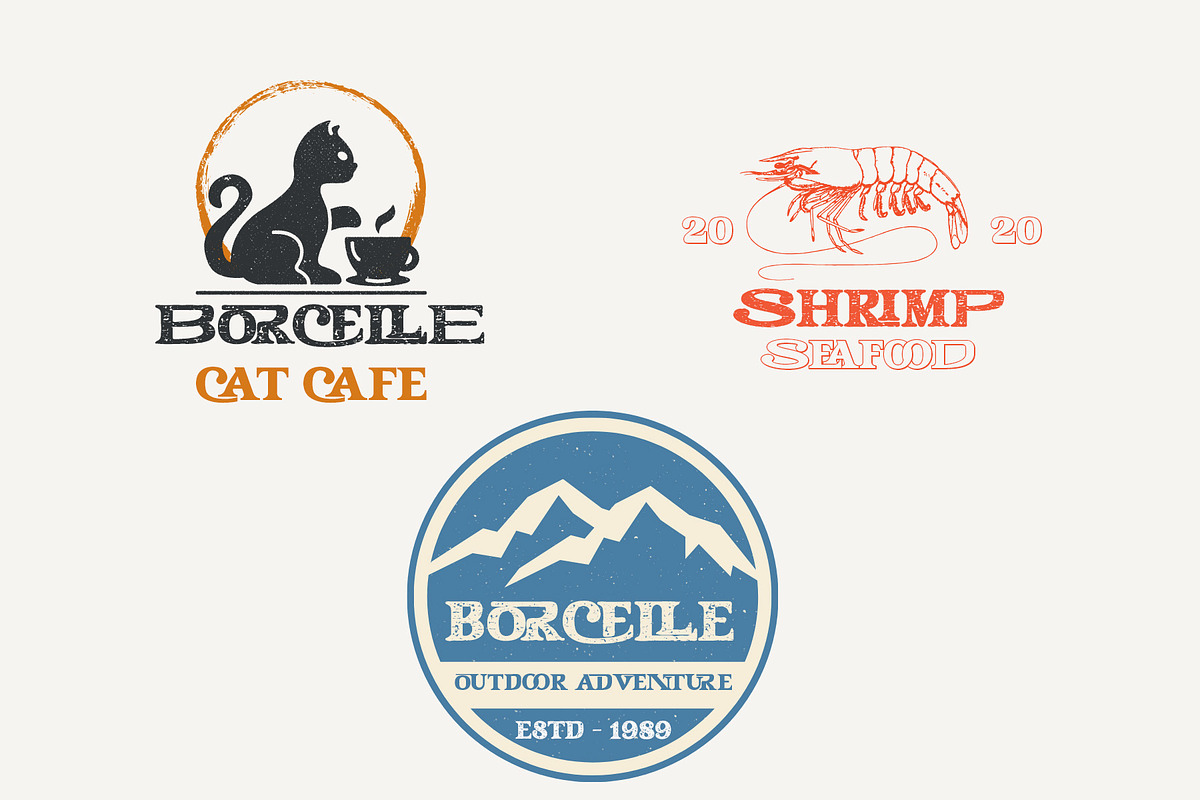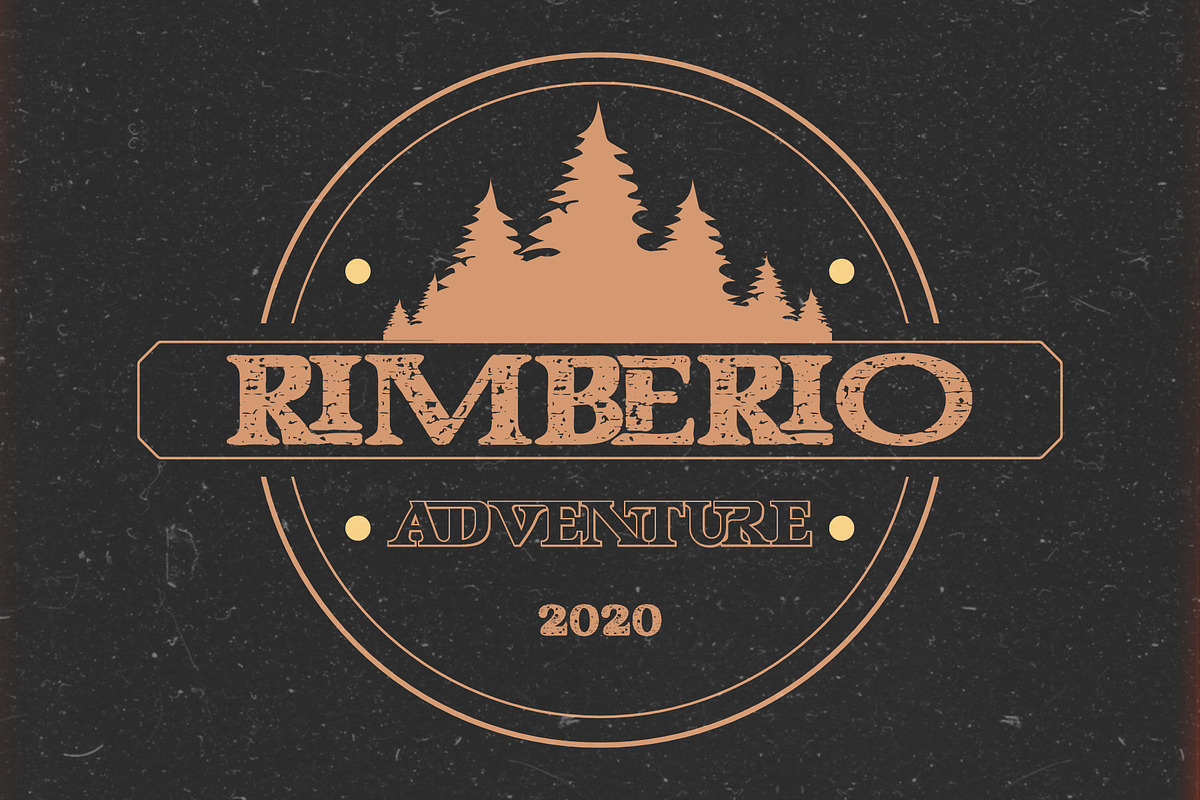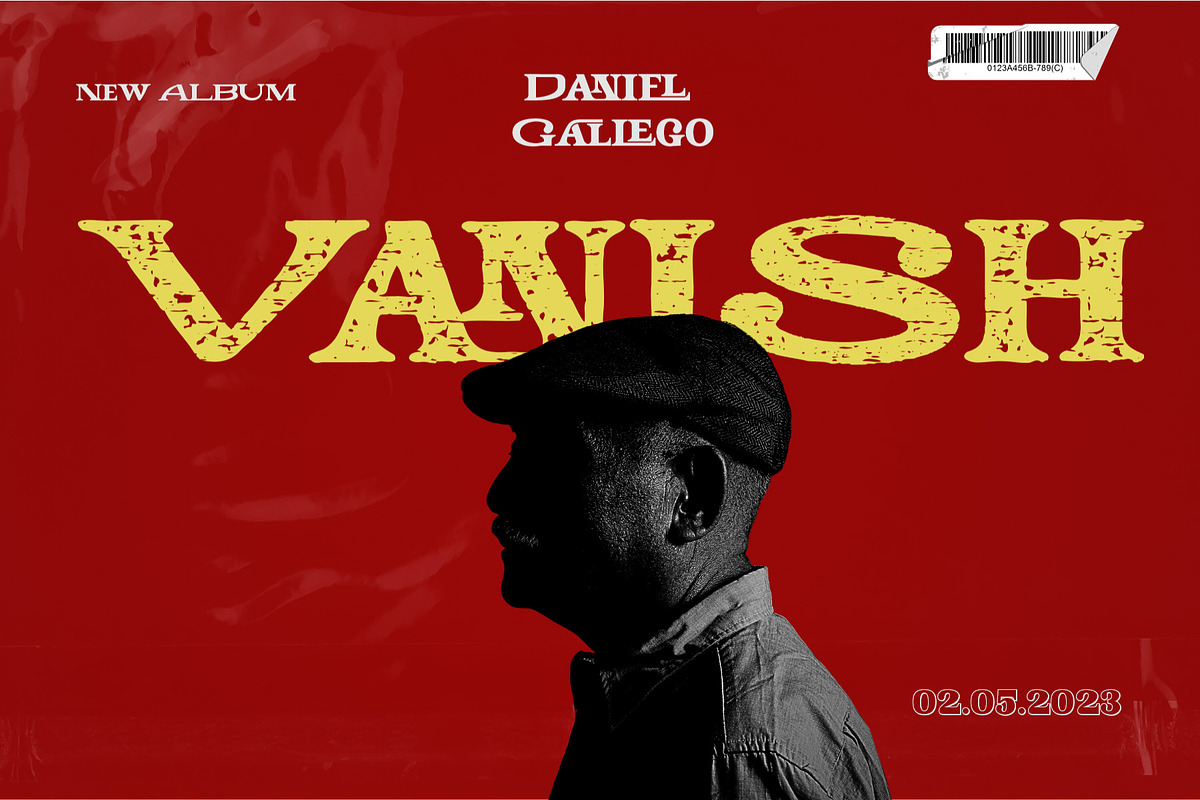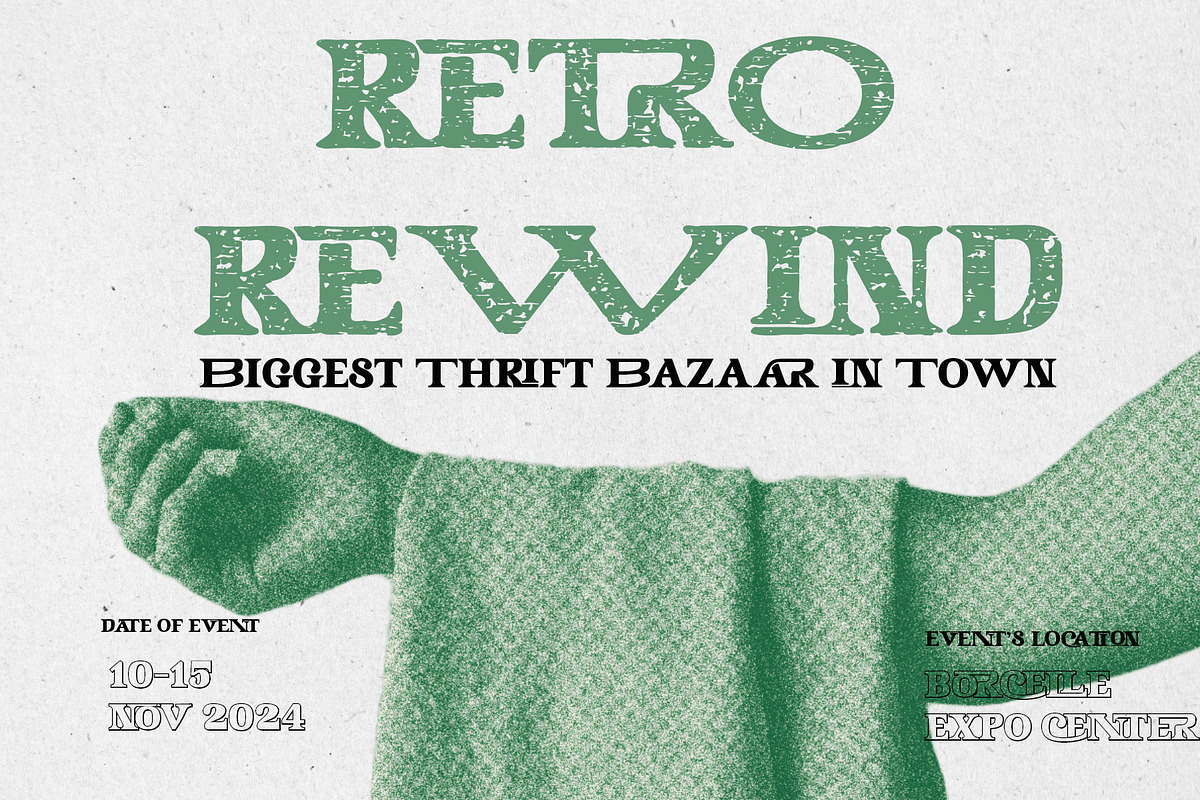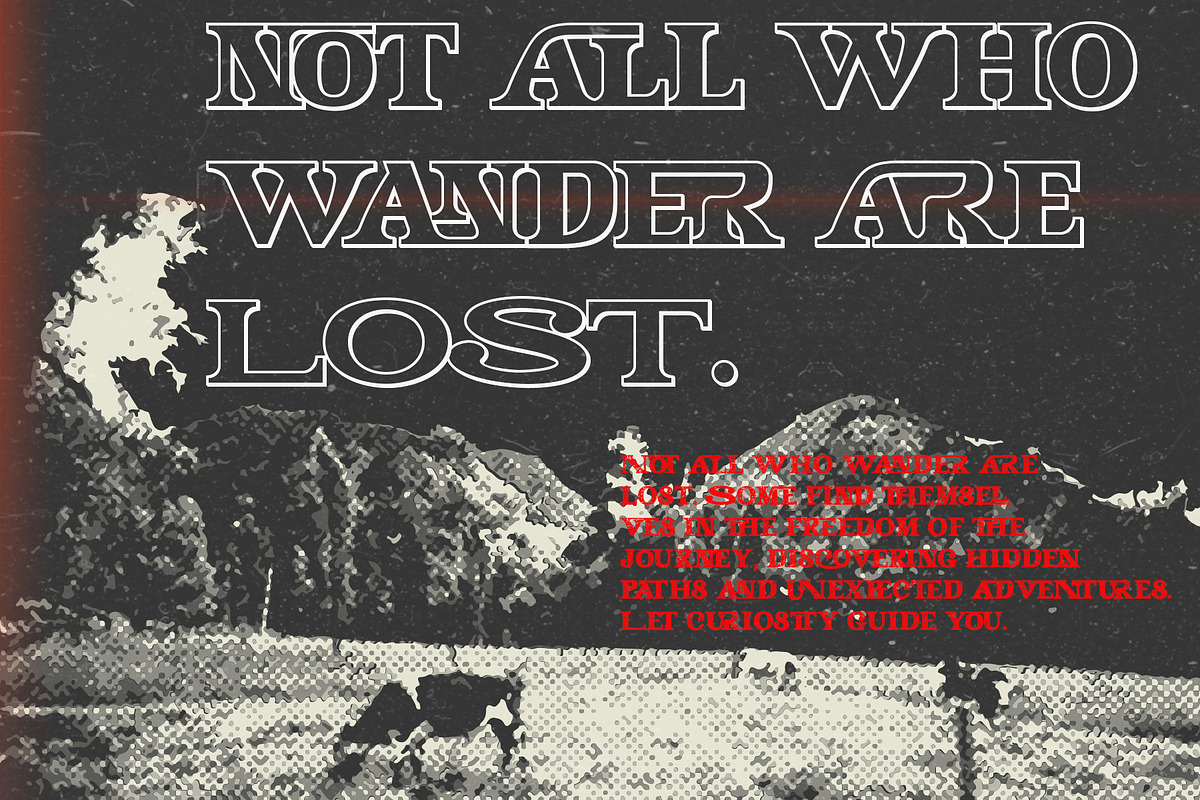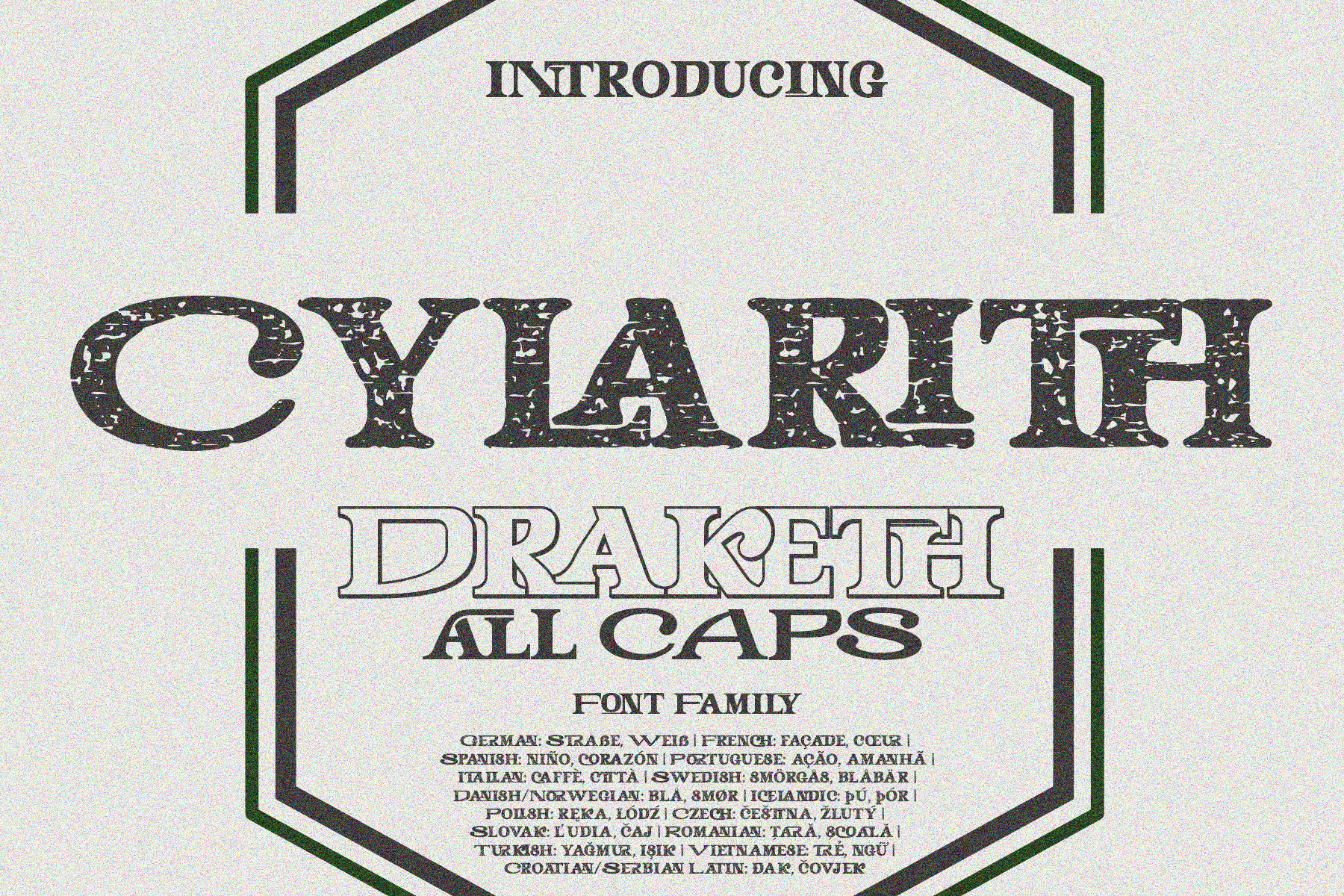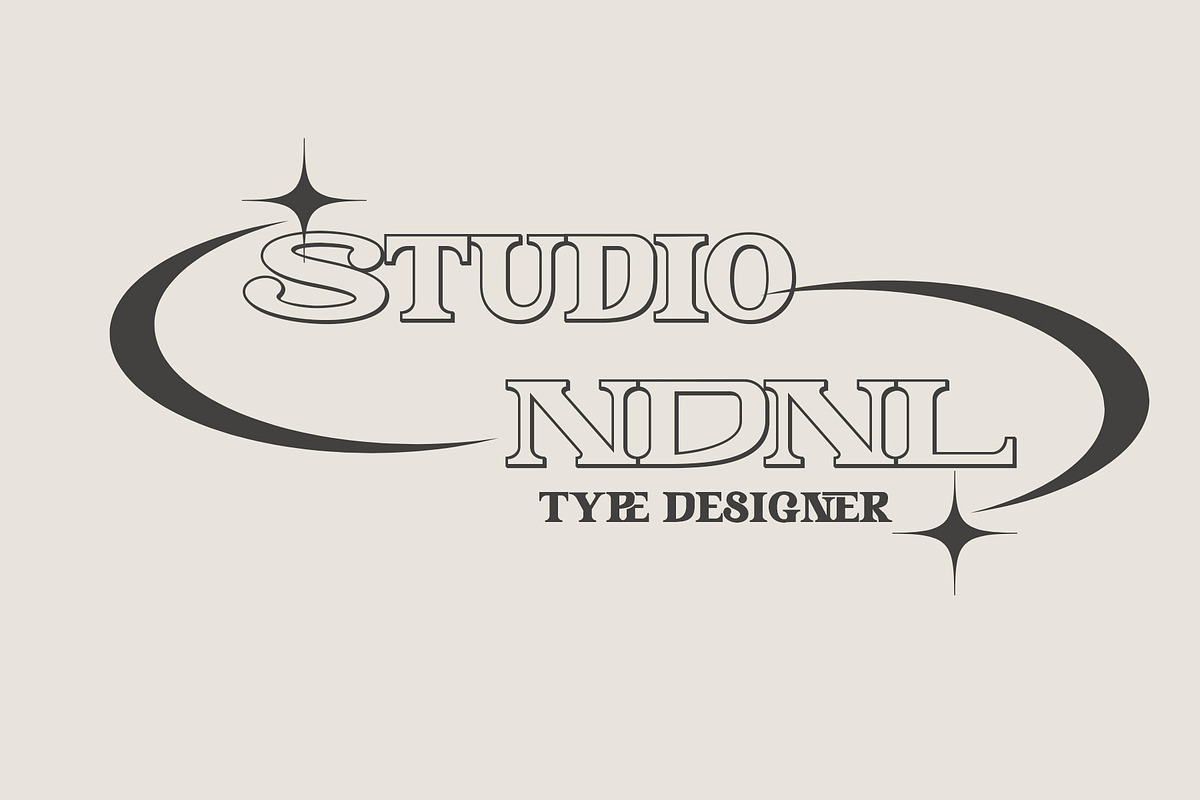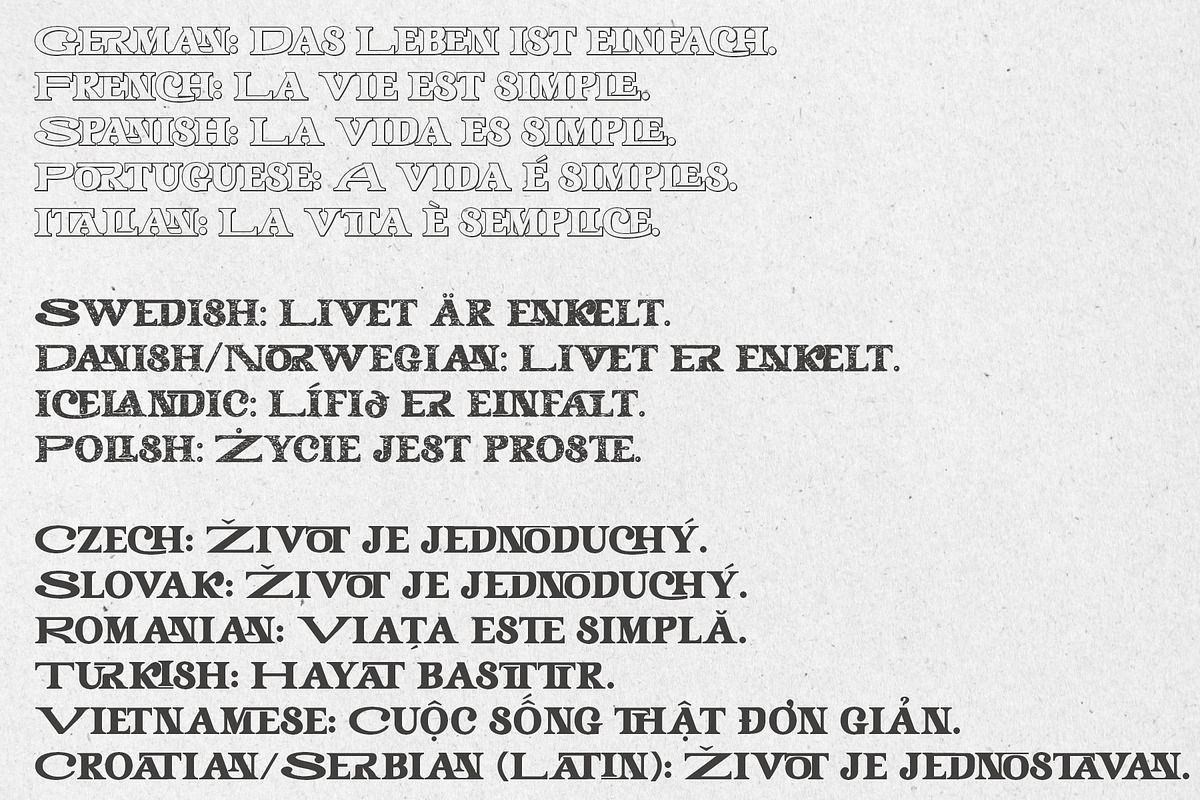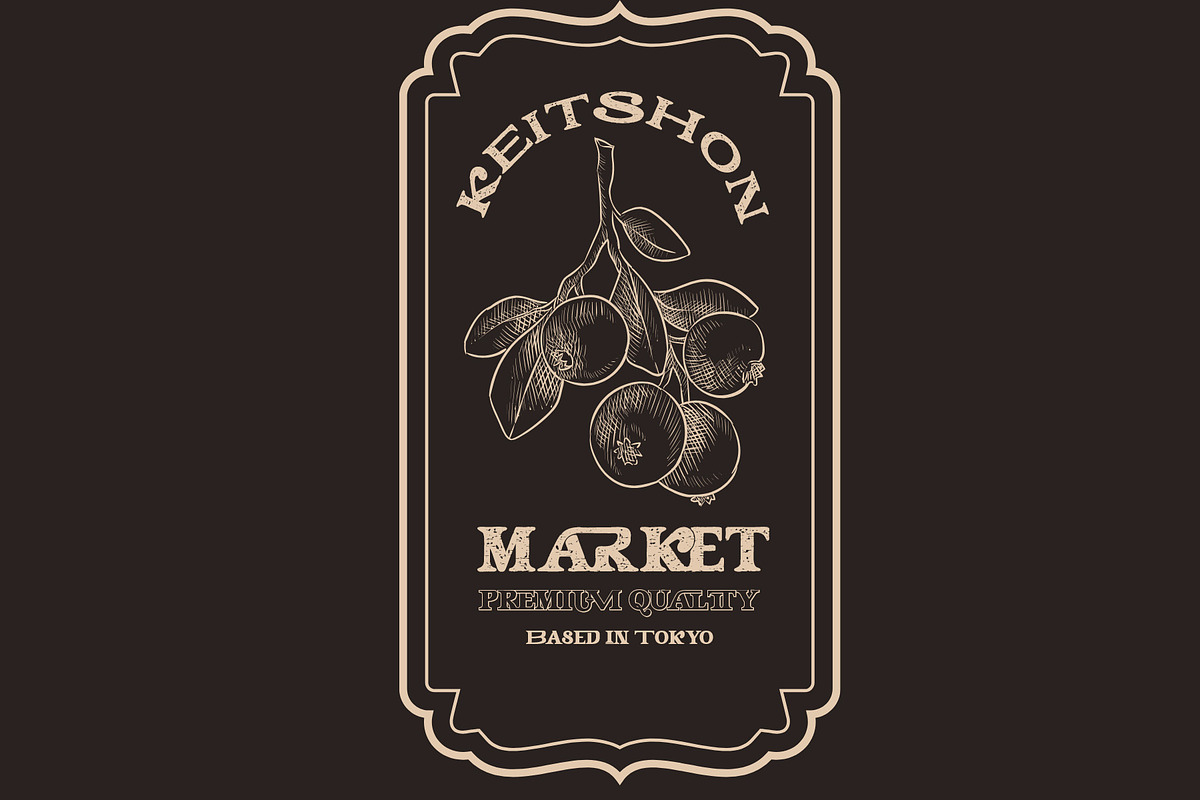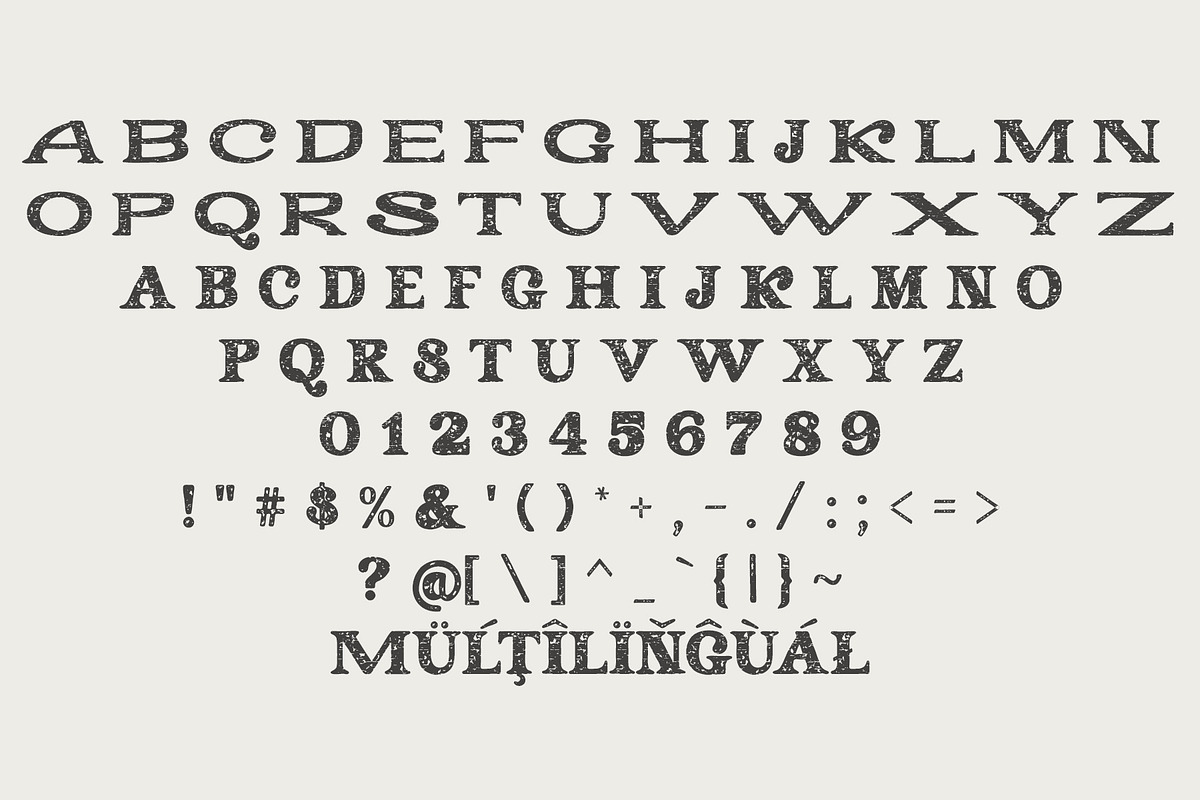
CYLARITH DRAKETH CAPS FONT FAMILY
Introducing CYLARITH DRAKETH CAPS!
CYLARITH DRAKETH CAPS is a bold ALL CAPS display font family that blends classic character with modern rough texture. Featuring strong letterforms and a distinctive distressed style, this font brings personality and impact to any design.
Perfect for posters, branding, logos, headlines, packaging, apparel, social media, and creative projects that require a powerful visual presence. CYLARITH DRAKETH CAPS comes with extended Latin language support, making it suitable for international use across multiple markets. An ideal choice for vintage-inspired, bold, rustic, or editorial design styles.
To separate ligatures: Insert the shortcut xXx between two characters.
- ab → axXxb → a b